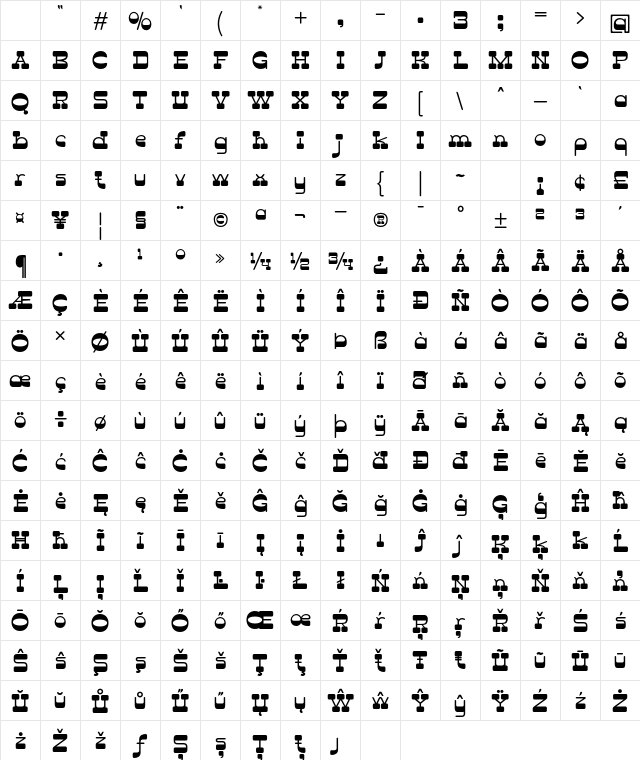
LATHIER Trial Regular
Complete LATHIER Trial Regular glyph index. Displaying only characters natively supported by LATHIER Trial Regular font.
Design Context for LATHIER Trial
LATHIER Trial is a composed and adaptable typeface that performs quietly and consistently across a wide range of design contexts.